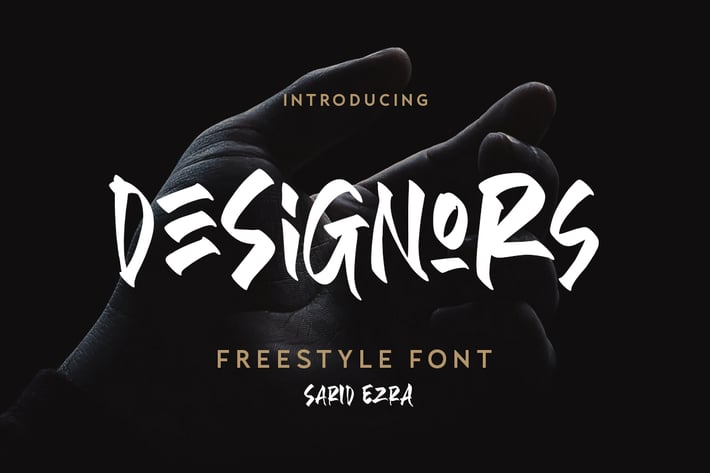
Designors - Freestyle Font
Designors is a freestyle font that will make your project more stylish and free! You can use this font for any project. Suitable for quotes and your tees design. This font also support multilingual. With different lowercase and uppercase will make your design more natural!